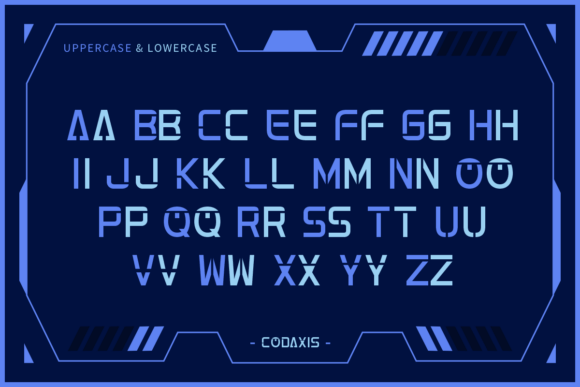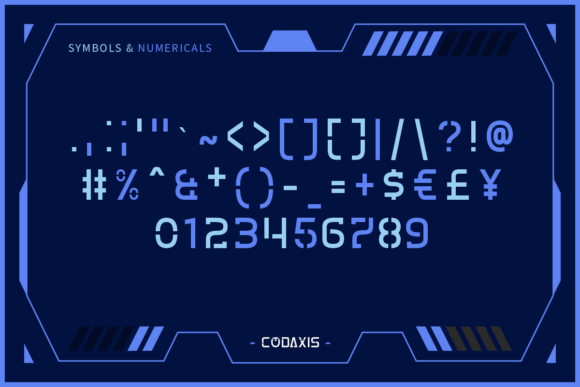
Step into the Future with Codaxis Font: The Ultimate Typeface for the Digital Frontier
In the rapidly evolving world of digital design, a font can make all the difference in setting the tone and aesthetic of your project. If you’re looking for a typeface that embodies the cutting-edge spirit of innovation and technology, look no further than Codaxis. This high-tech, stencil-inspired font is specifically designed for the digital frontier, making it the perfect choice for designers and crafters who want to create a futuristic look.
The Design of Codaxis Font
Codaxis font features geometric, modular letterforms that evoke a sense of advanced robotics, cybernetic interfaces, and sci-fi aesthetics. Its sharp angles and unique “circuit-break” gaps give it a distinctive look that’s both industrial and futuristic. The font’s design is inspired by the sleek lines and metallic surfaces of high-tech machinery, making it an ideal candidate for gaming logos, tech startup branding, and futuristic movie posters.
Key Features of Codaxis Font
- Geometric and Modular Design: Codaxis font features geometric shapes and modular letterforms that give it a futuristic and high-tech look.
- Sharp Angles and Circuit-Break Gaps: The font’s sharp angles and unique “circuit-break” gaps add to its industrial and cutting-edge aesthetic.
- High-Tech and Sci-Fi Inspiration: Codaxis font is inspired by advanced robotics, cybernetic interfaces, and sci-fi aesthetics, making it perfect for projects that require a futuristic look.
Use Cases for Codaxis Font
Codaxis font is an incredibly versatile typeface that can be used in a variety of design projects. Here are some of the most popular use cases:
- Gaming Logos: The font’s futuristic and high-tech design makes it perfect for gaming logos that require a cutting-edge look.
- Tech Startup Branding: Codaxis font is ideal for tech startup branding, as it conveys a sense of innovation and forward-thinking.
- Futuristic Movie Posters: The font’s sci-fi aesthetic makes it a great choice for futuristic movie posters that require a bold and attention-grabbing design.
- UI/UX Headers: Codaxis font can be used in UI/UX design to create headers and titles that are both futuristic and functional.
- High-Concept Apparel: The font’s industrial and cutting-edge design makes it perfect for high-concept apparel that requires a bold and eye-catching look.
Tips for Using Codaxis Font
To get the most out of Codaxis font, here are some tips for using it in your design projects:
- Pair it with Neon Glow Effects: Adding neon glow effects to Codaxis font can enhance its futuristic and high-tech look.
- Use Metallic Textures: Pairing Codaxis font with metallic textures can add to its industrial and cutting-edge aesthetic.
- Experiment with Different Colors: Codaxis font can be used with a variety of colors, so don’t be afraid to experiment and find the perfect combination for your design.
Codaxis font is a powerful and versatile typeface that’s perfect for designers and crafters who want to create a futuristic look. Its geometric, modular design and sharp angles make it an ideal candidate for gaming logos, tech startup branding, and futuristic movie posters. With its industrial and cutting-edge aesthetic, Codaxis font is the ultimate tool for designing the world of tomorrow. So why wait? Step into the future with Codaxis font and take your design projects to the next level.